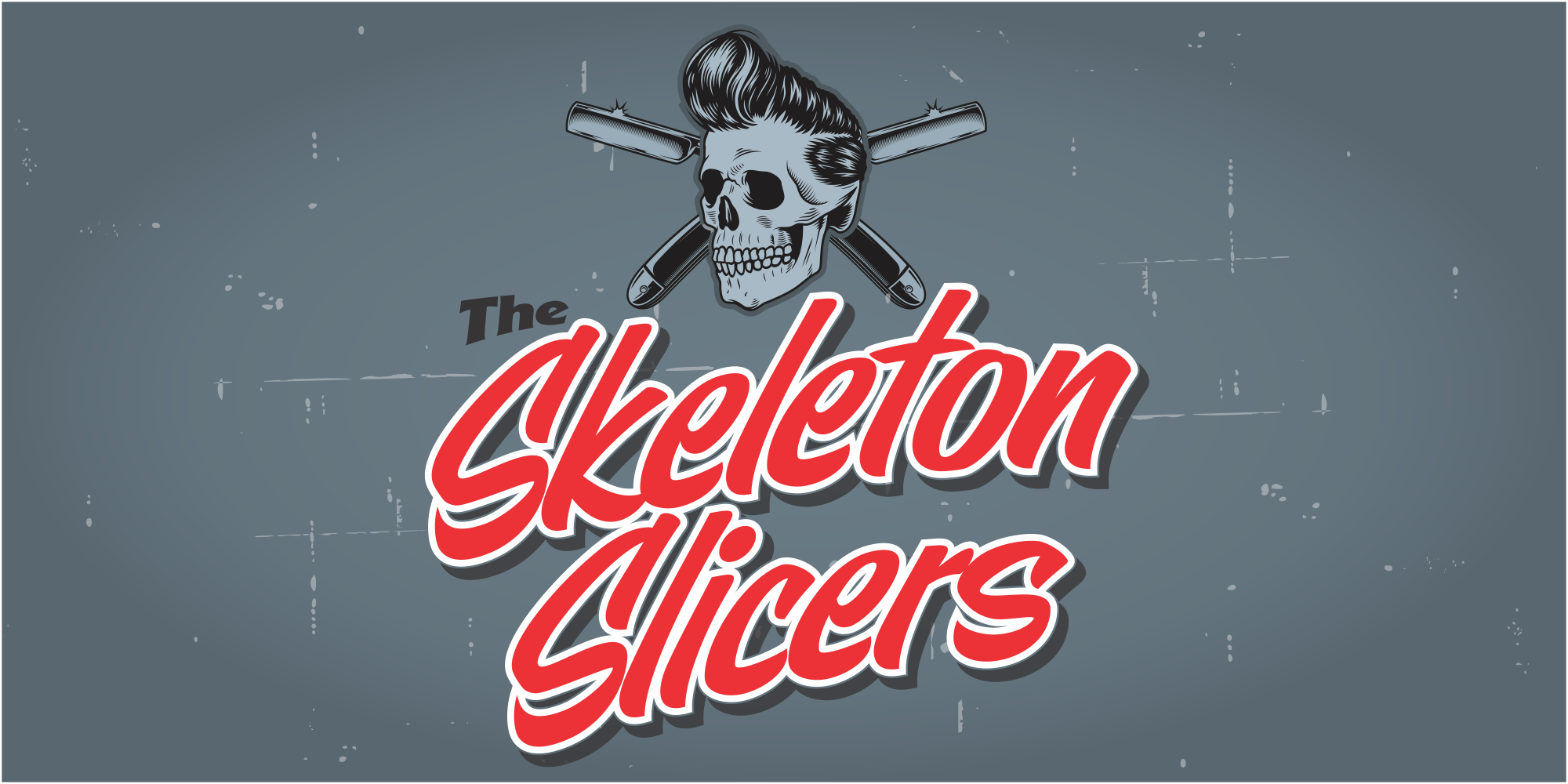
The Flick Casual Font is perfect for trendy coffee shop branding, casual dining restaurant menus, lifestyle blog headers, social media marketing graphics, relaxed retail store signage, friendly app interface design, informal presentation slides, approachable startup logos, and laid-back creative agency materials.
What makes the Flick Casual Font so exciting is its effortless modern charm that perfectly captures the relaxed confidence and approachable sophistication of contemporary casual culture. This versatile typeface embodies the easy-going style and friendly accessibility that defines modern casual lifestyle, creating an immediate impression of comfort and contemporary appeal. The font's flick casual character communicates the relaxed professionalism and approachable quality that casual lifestyle businesses need to attract customers who appreciate laid-back sophistication and seek comfortable experiences that blend style with accessibility and modern convenience.
The Flick Casual Font family includes Regular weight featuring complete uppercase and lowercase character sets, comprehensive numerical collections, essential punctuation marks, and contemporary symbols that maintain the casual aesthetic throughout your relaxed lifestyle and approachable modern design projects.
Casual lifestyle businesses and contemporary service providers consistently select Flick Casual Font Free Download for projects that require authentic casual appeal and approachable modern communication. This exceptional typeface excels in environments where establishing comfortable accessibility and contemporary style is crucial for attracting customers who value relaxed experiences and modern casual sophistication. The font's flick casual character helps communicate the quality and approachable excellence that casual lifestyle audiences expect from established contemporary brands and relaxed professional service providers.
The distinctive qualities of Flick Casual Font reflect the evolving culture of modern casual living where comfortable style, approachable quality, and contemporary accessibility create meaningful everyday experiences and lasting customer relationships. Each character demonstrates the perfect balance between relaxed charm and professional reliability that characterizes successful casual lifestyle businesses and contemporary service enterprises. The font's proportions and spacing create perfect harmony between casual comfort and modern functionality that contemporary businesses require for effective lifestyle communication and approachable brand positioning.
Contemporary casual enterprises appreciate how Flick Casual Font communicates modern authenticity and approachable excellence. Whether designing materials for casual dining establishments, creating branding for lifestyle retail stores, or developing marketing for contemporary service businesses, this font delivers the relaxed character that distinguishes genuine casual sophistication from generic informal styling. The typeface works exceptionally well for businesses emphasizing comfortable accessibility, modern convenience, and the appealing blend of casual style and contemporary quality.
The versatility of Flick Casual Font extends across multiple casual applications and contemporary lifestyle marketing initiatives. Modern coworking spaces utilize its relaxed character for community materials and contemporary workspace communications. Lifestyle bloggers choose it to communicate their approachable expertise and casual modern perspective. Contemporary retail brands rely on its friendly appearance to attract customers seeking comfortable shopping experiences and modern casual lifestyle products.
Digital lifestyle platforms benefit from Flick Casual Font's optimized performance across various casual applications and contemporary communication channels. The font maintains its flick casual character whether displayed on lifestyle websites, mobile casual apps, or digital contemporary marketing materials. This technical reliability ensures consistent brand presentation across all casual communication platforms and modern lifestyle engagement scenarios.
The emotional impact of Flick Casual Font resonates with audiences who appreciate modern casual living and seek comfortable experiences that combine style with accessibility and contemporary convenience. The typeface serves as a visual promise of relaxed quality and approachable sophistication that helps casual businesses build lasting relationships with customers who value comfortable modern experiences and contemporary casual lifestyle solutions. This connection to casual sophistication and modern accessibility makes it invaluable for establishing memorable contemporary casual brand identities.
Casual lifestyle marketing specialists and contemporary design professionals recognize Flick Casual Font as an essential tool for authentic modern casual branding. The font captures the essence of contemporary casual culture while making relaxed sophistication accessible to modern businesses who want to communicate their commitment to comfortable quality, approachable service, and the appealing blend of casual style and contemporary excellence in today's lifestyle-focused marketplace.